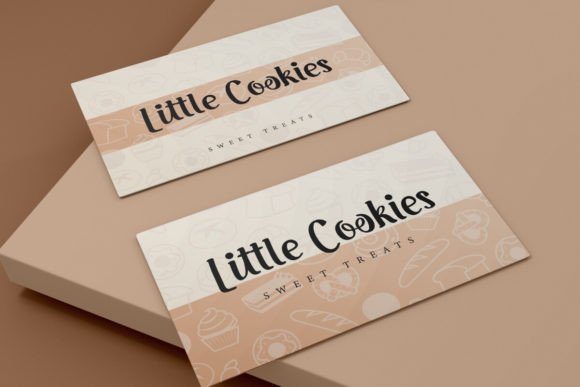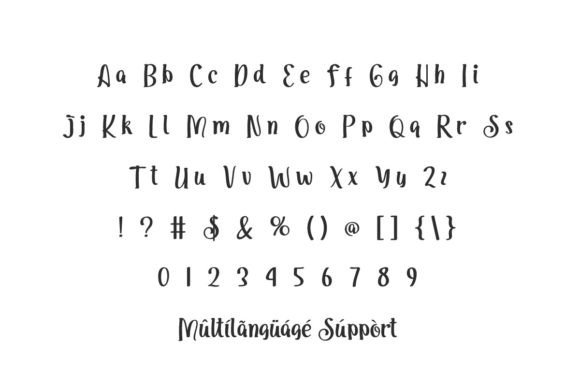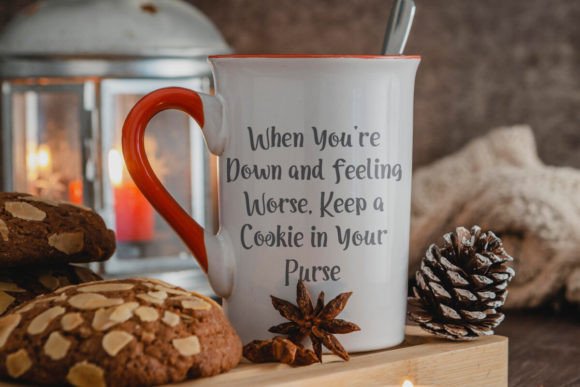
Introduction to Best Cookies Font
Best Cookies Font is a sweet handwriting with a comic style.
This font still looks perfect in split or connected views and is easy to read This font will suit many industries, such as advertising, bakery and pastry, café, restaurant, publishing, and more.
Key Features of Best Cookies Font